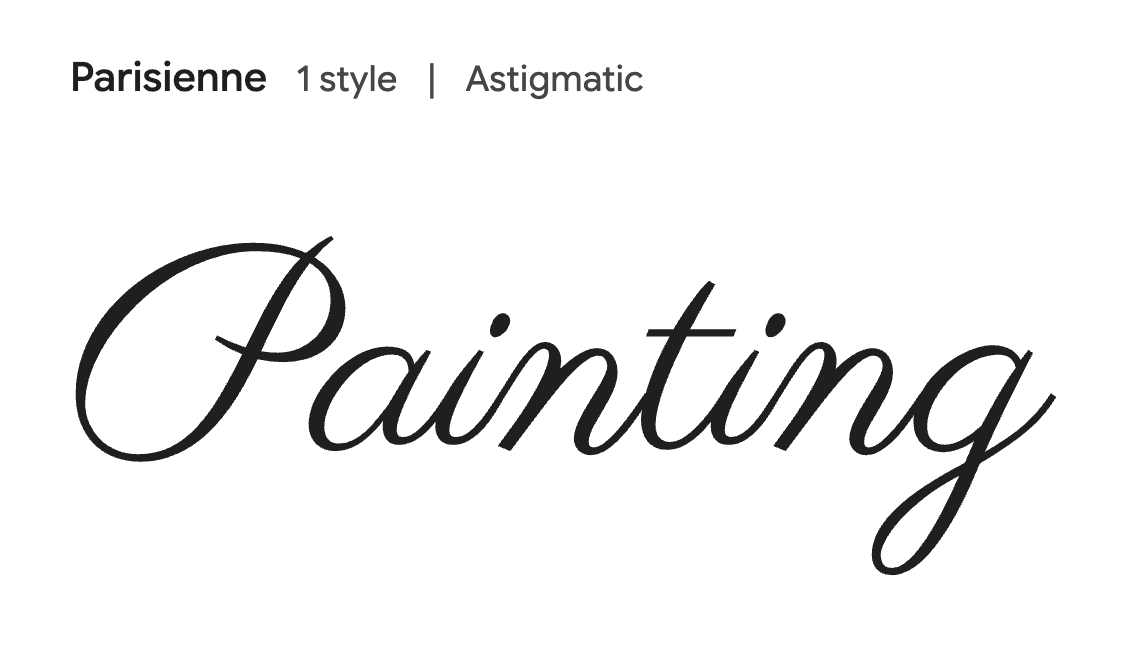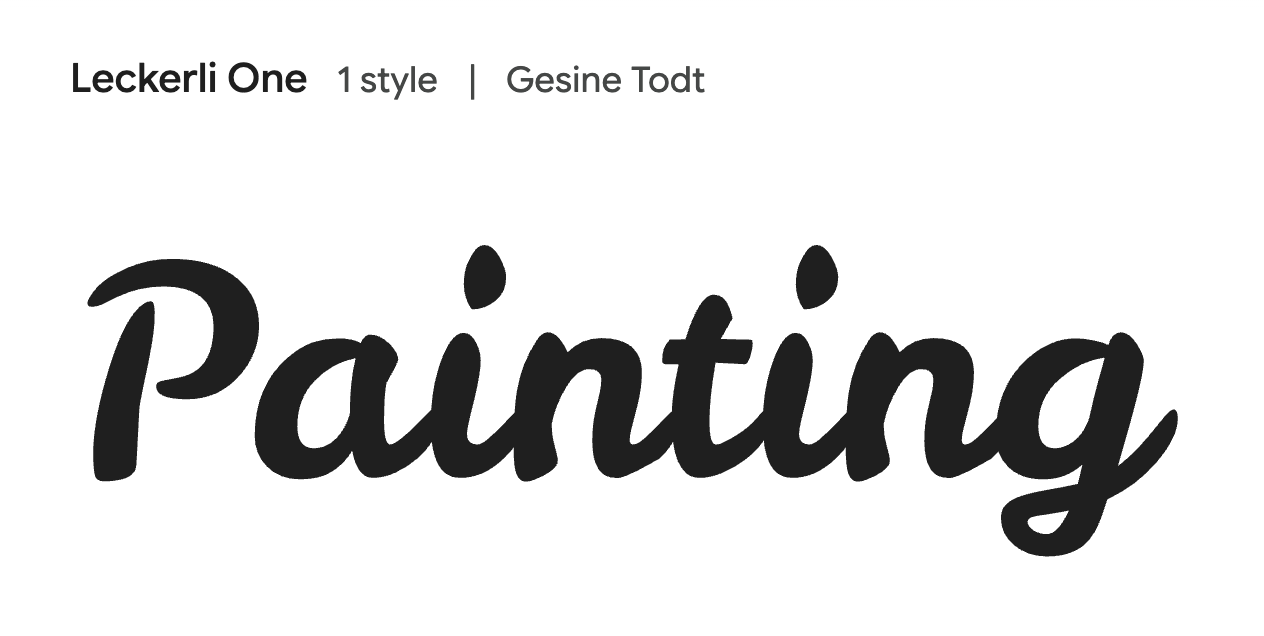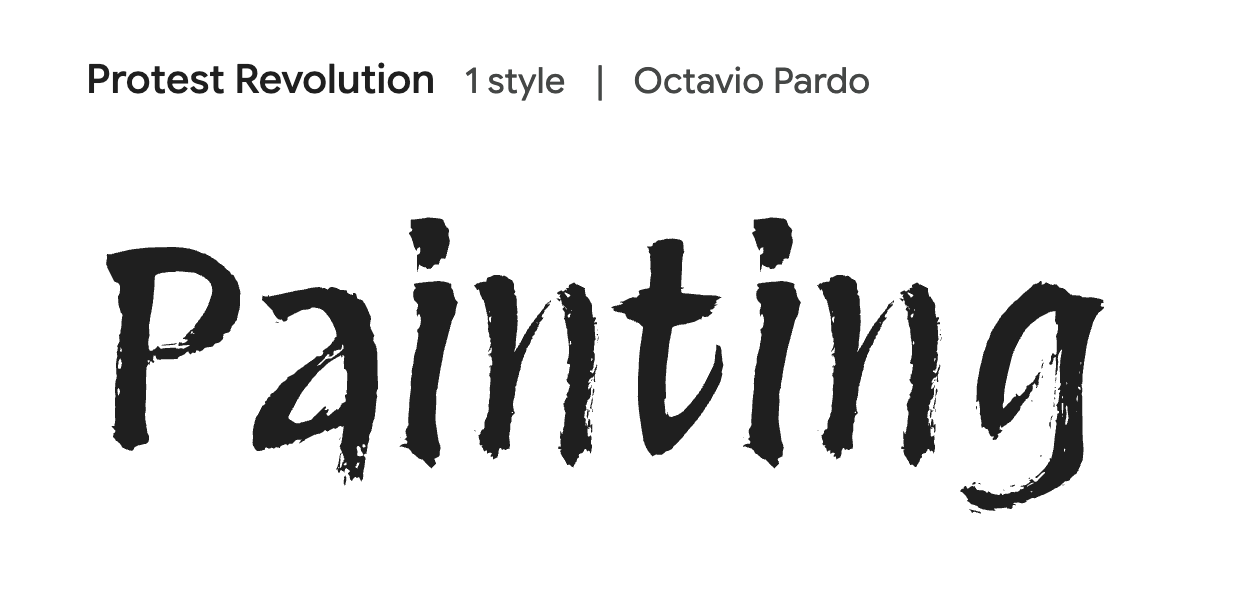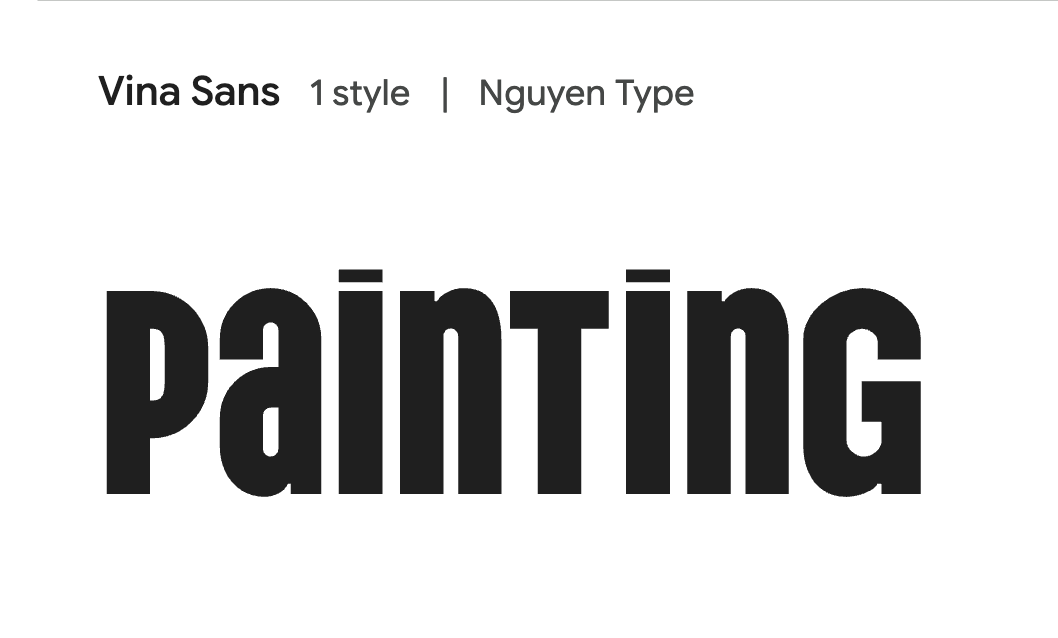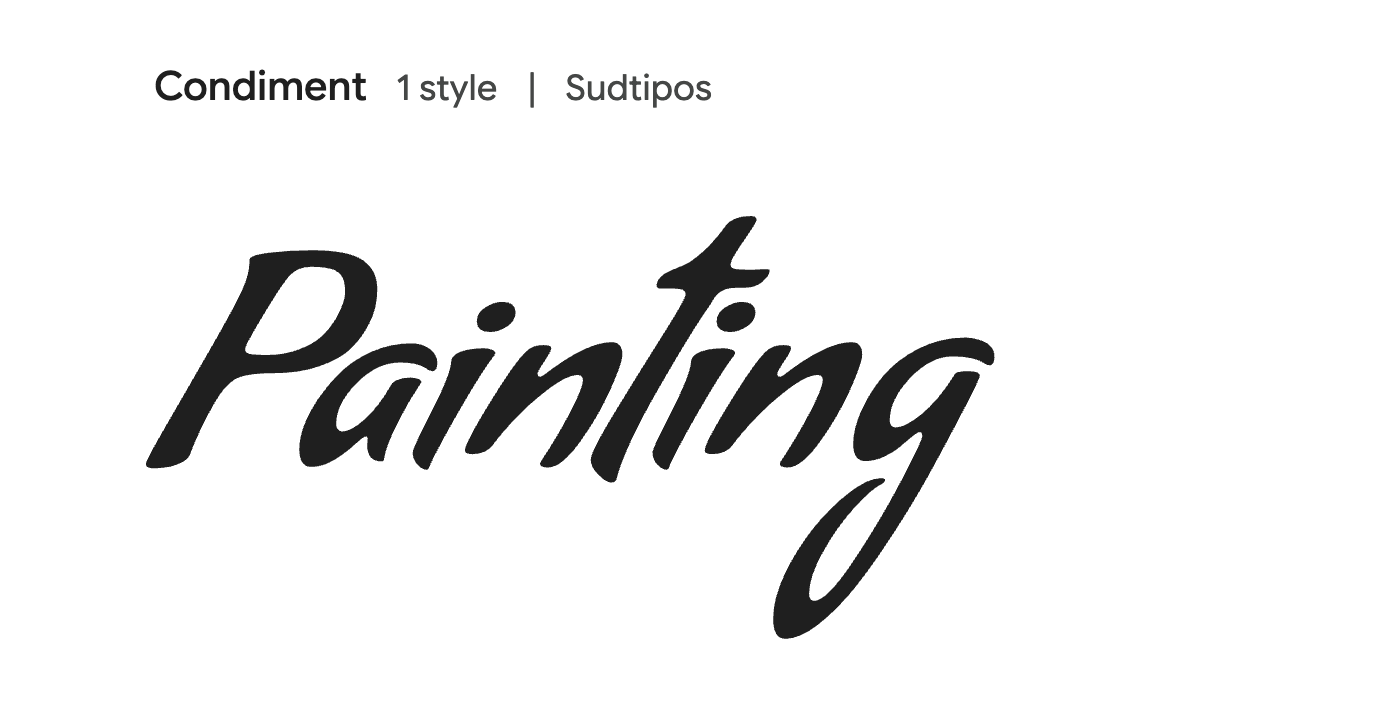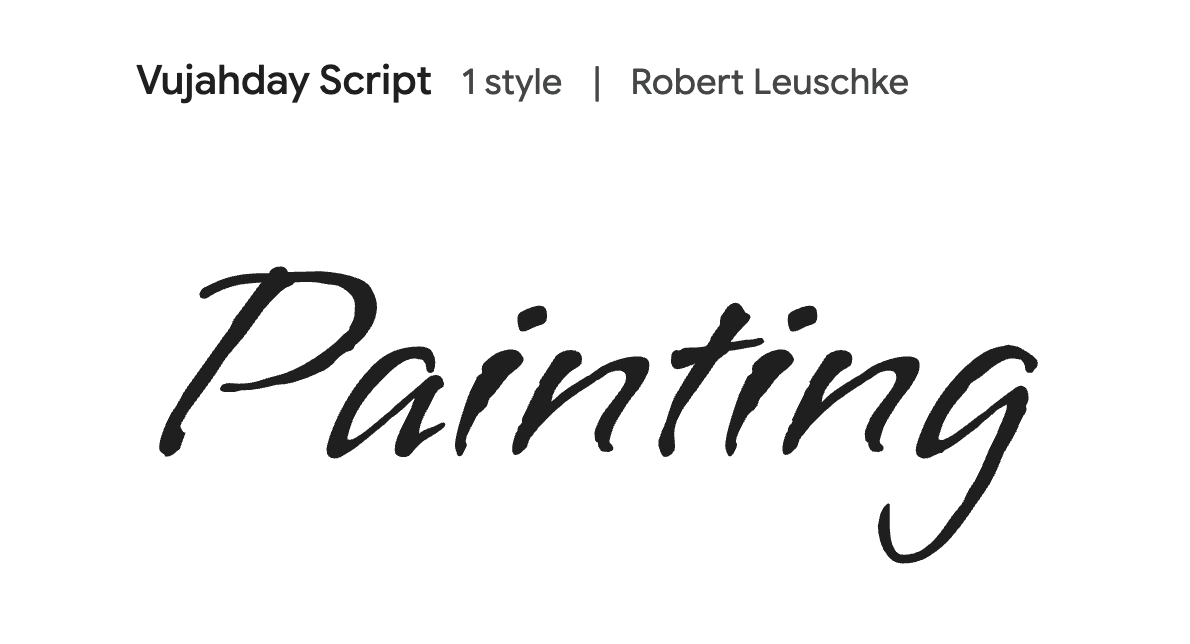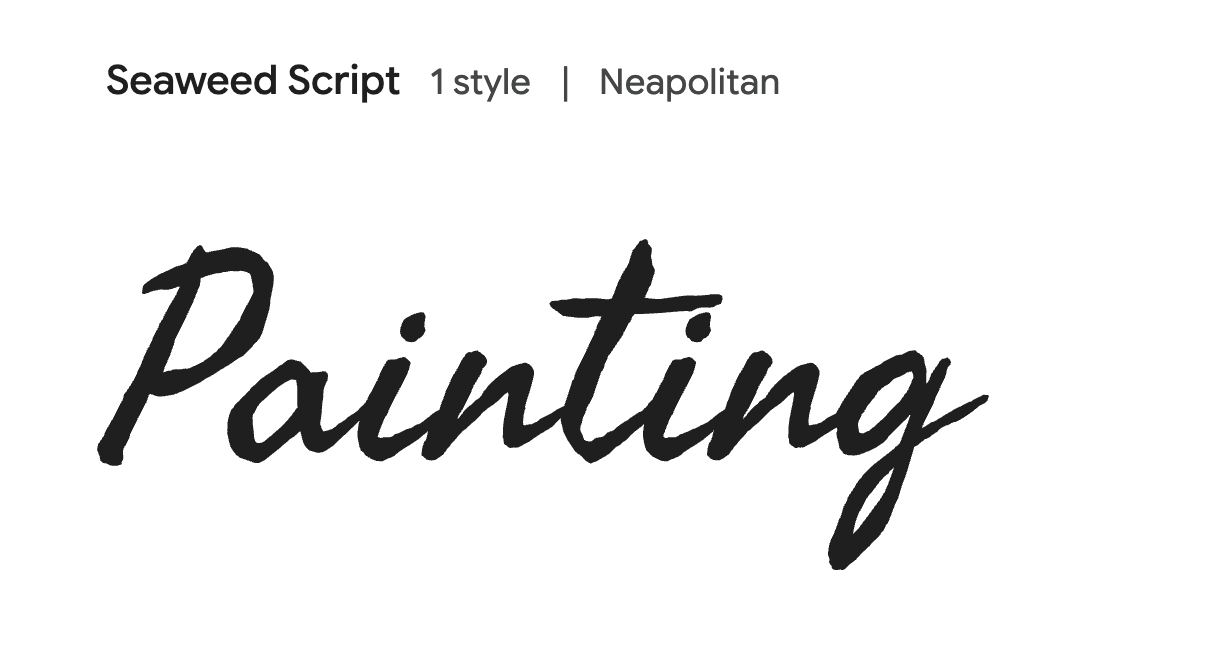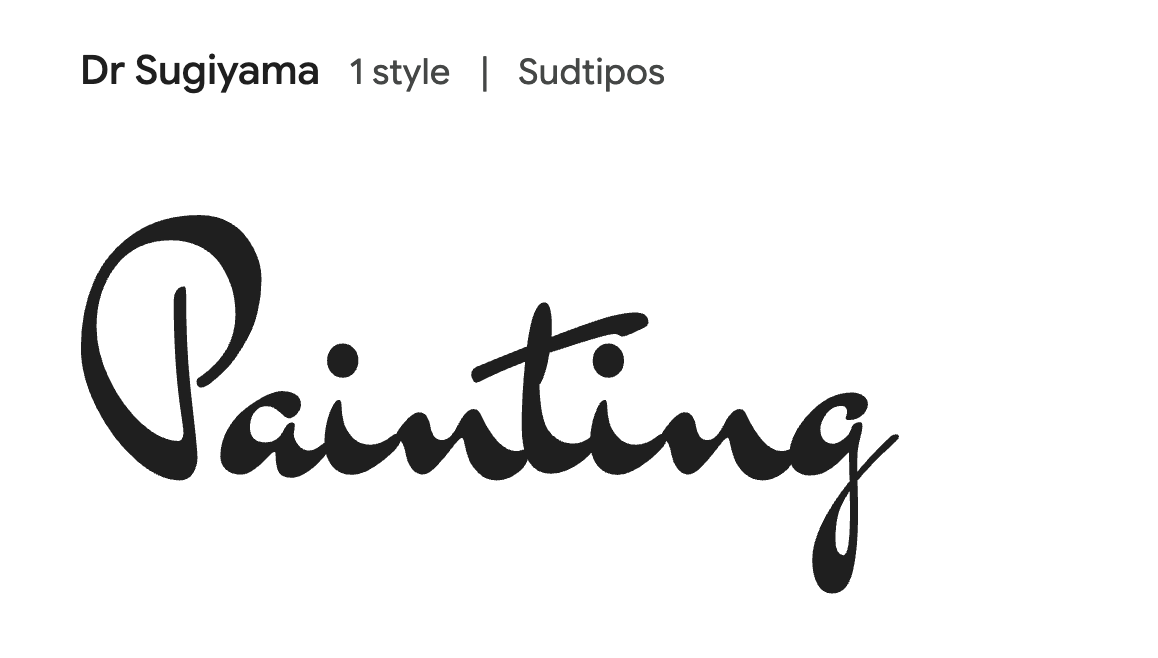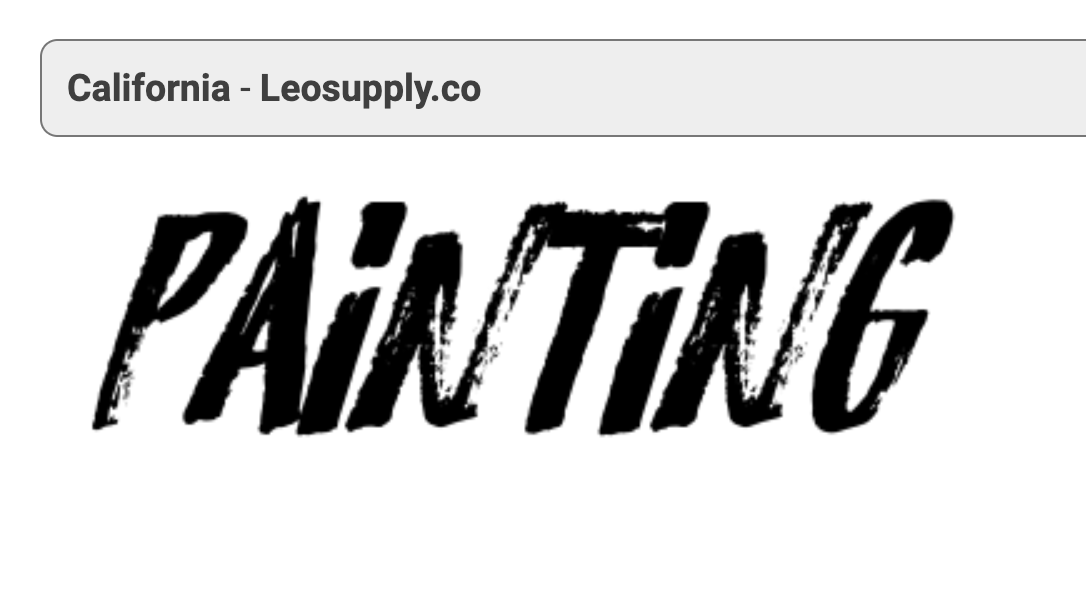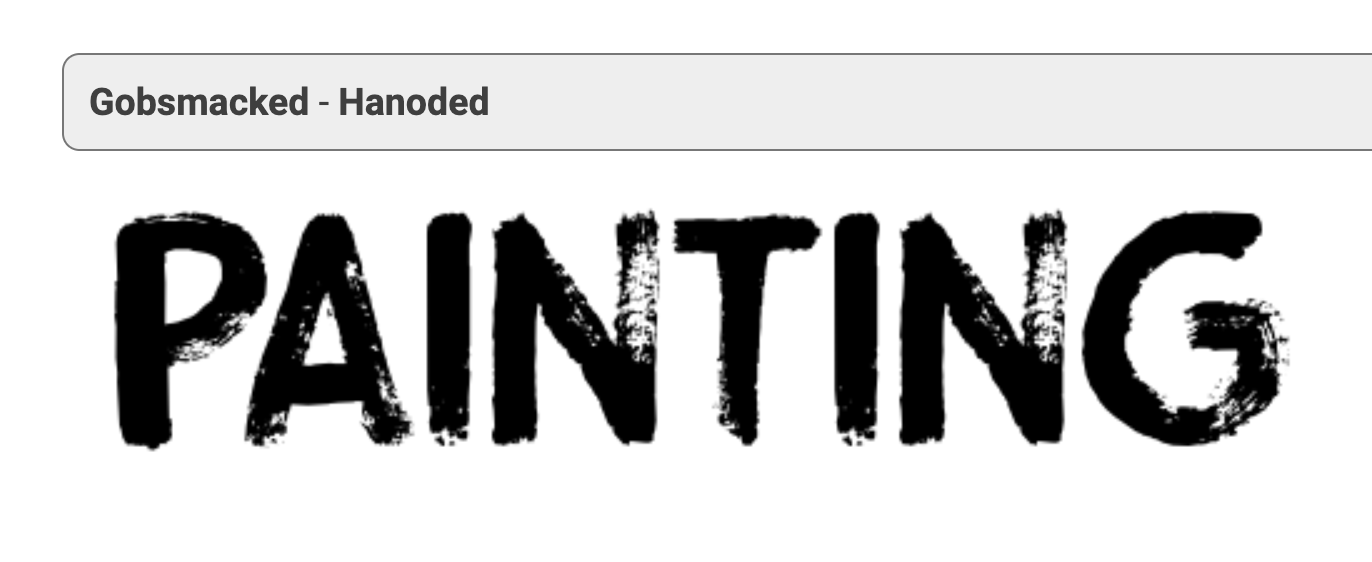
Original Versions
New “Paint” Font Alternatives
Obviously there are thousands of fonts to choose from—these are just a selection to try and detect a direction. These all suggest paint strokes.